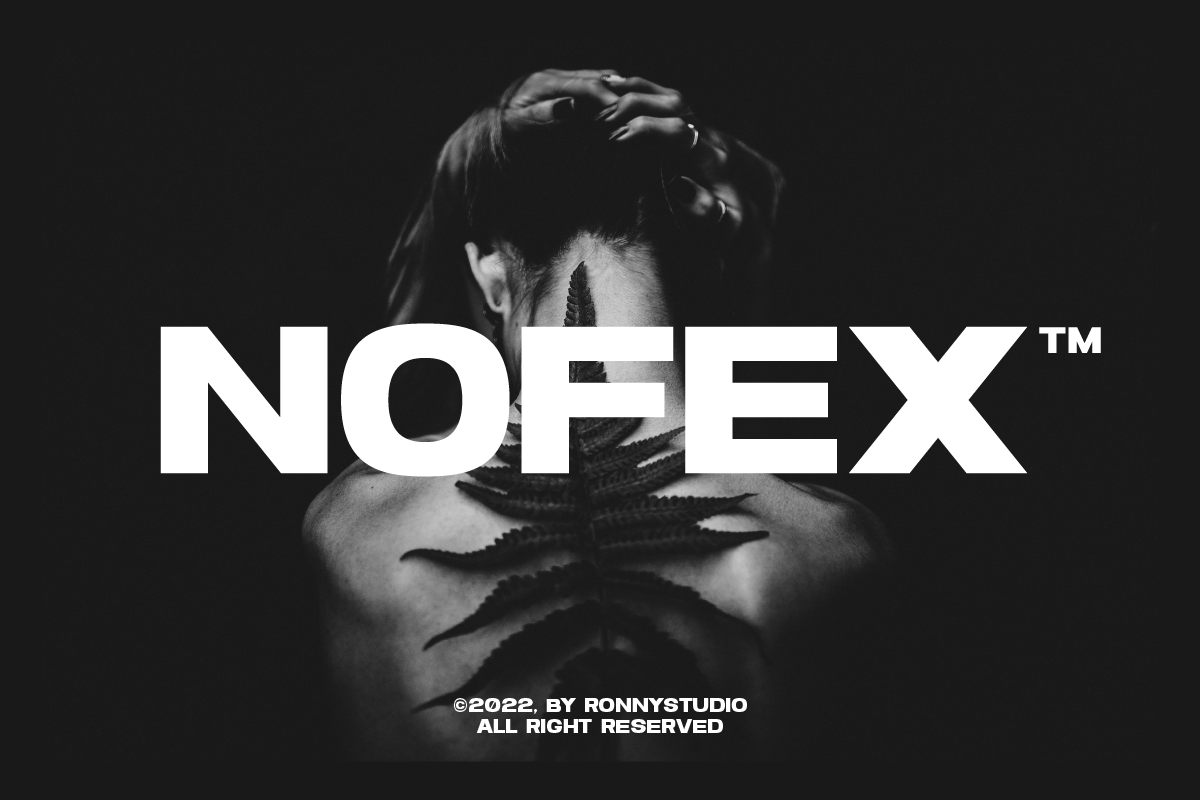
Nofex – Bold Expanded Display Font
Nofex is a bold expanded display font designed to make your typography impossible to ignore.
With its wide proportions, heavy weight, and strong geometric construction, Nofex brings a powerful visual presence to headlines, posters, branding, fashion graphics, sports designs, album artwork, and social media.
Its expanded letterforms create a strong horizontal rhythm, making it especially effective for large typography and attention-grabbing layouts.
Nofex is made for designers who need bold typography with a strong, modern presence.